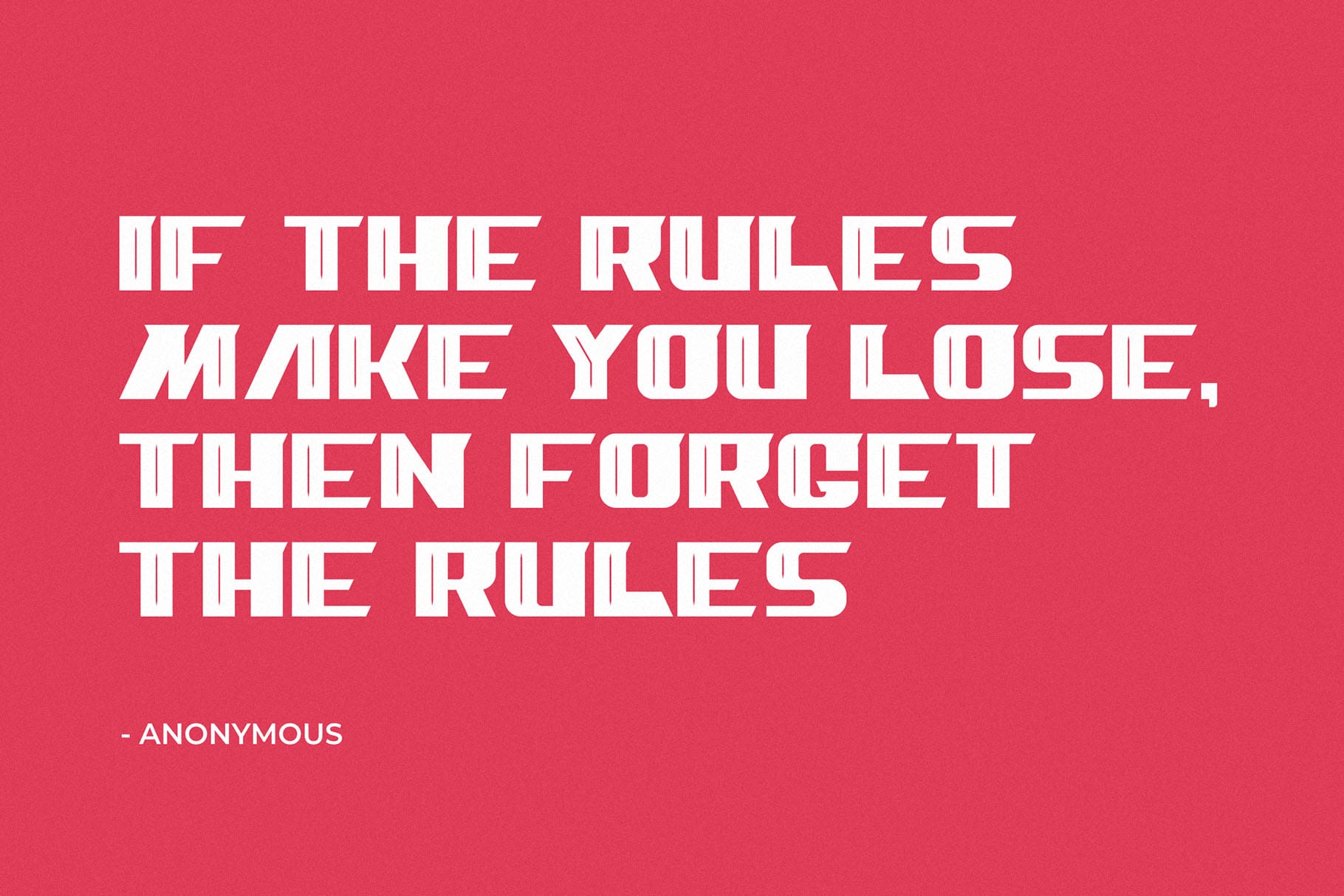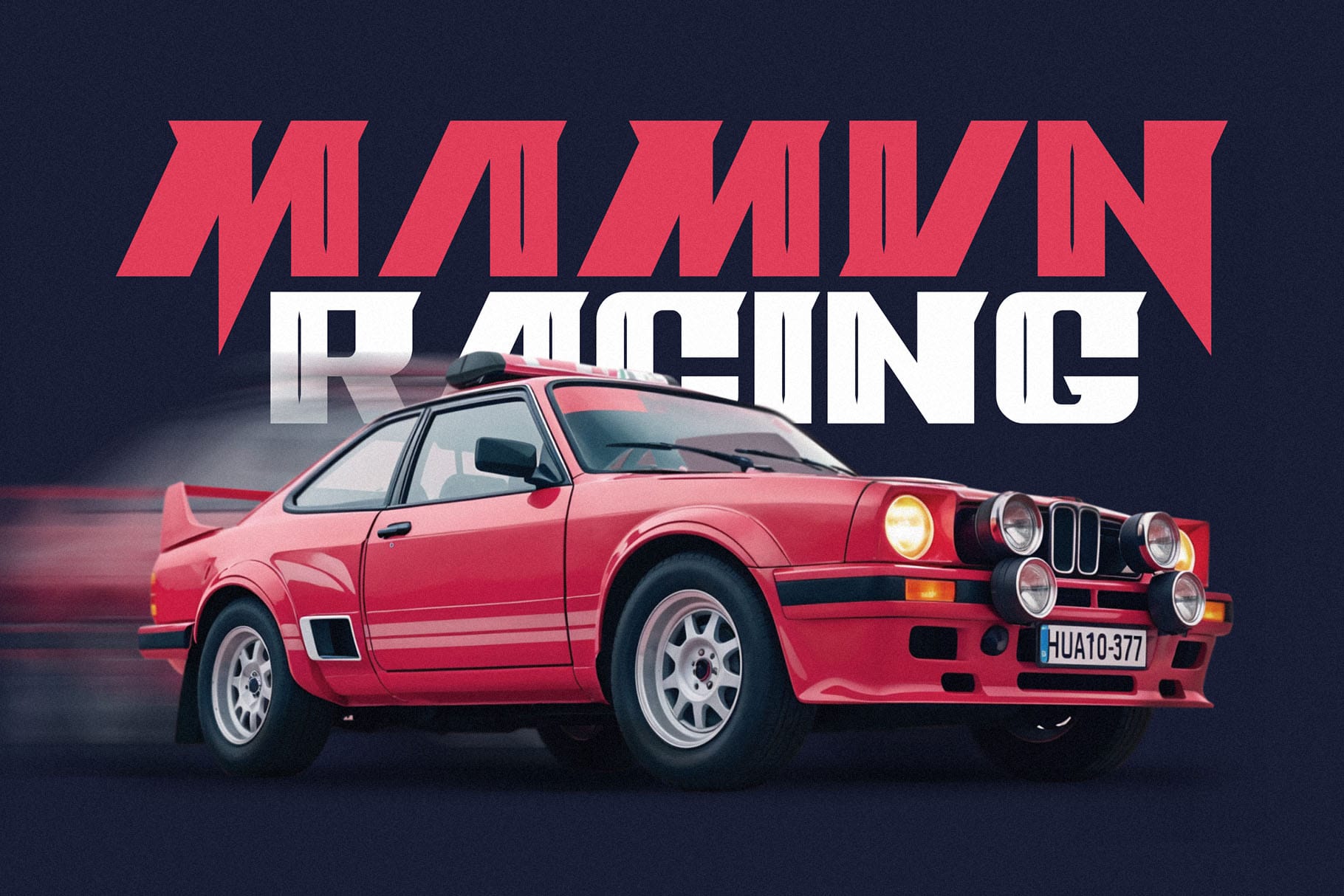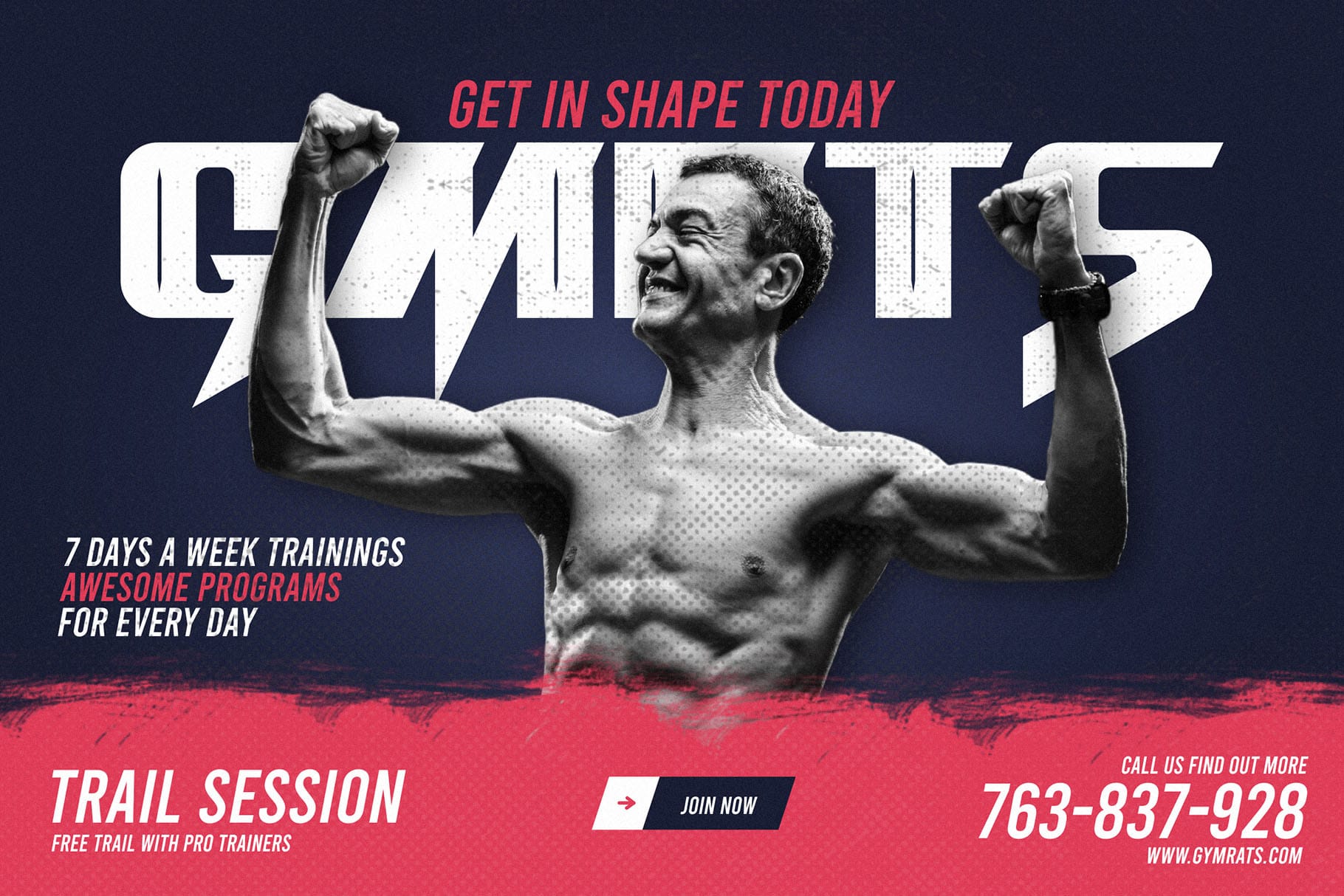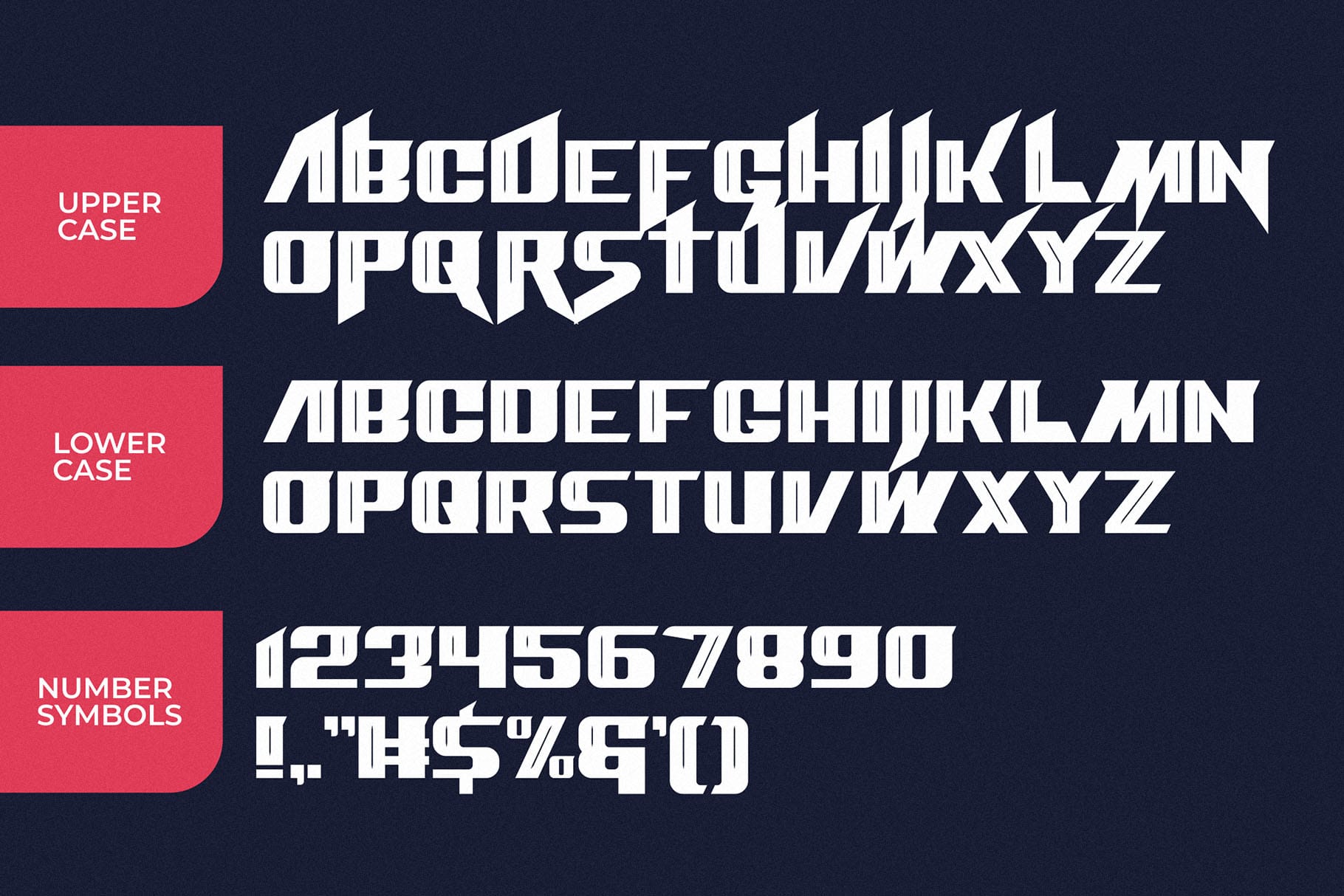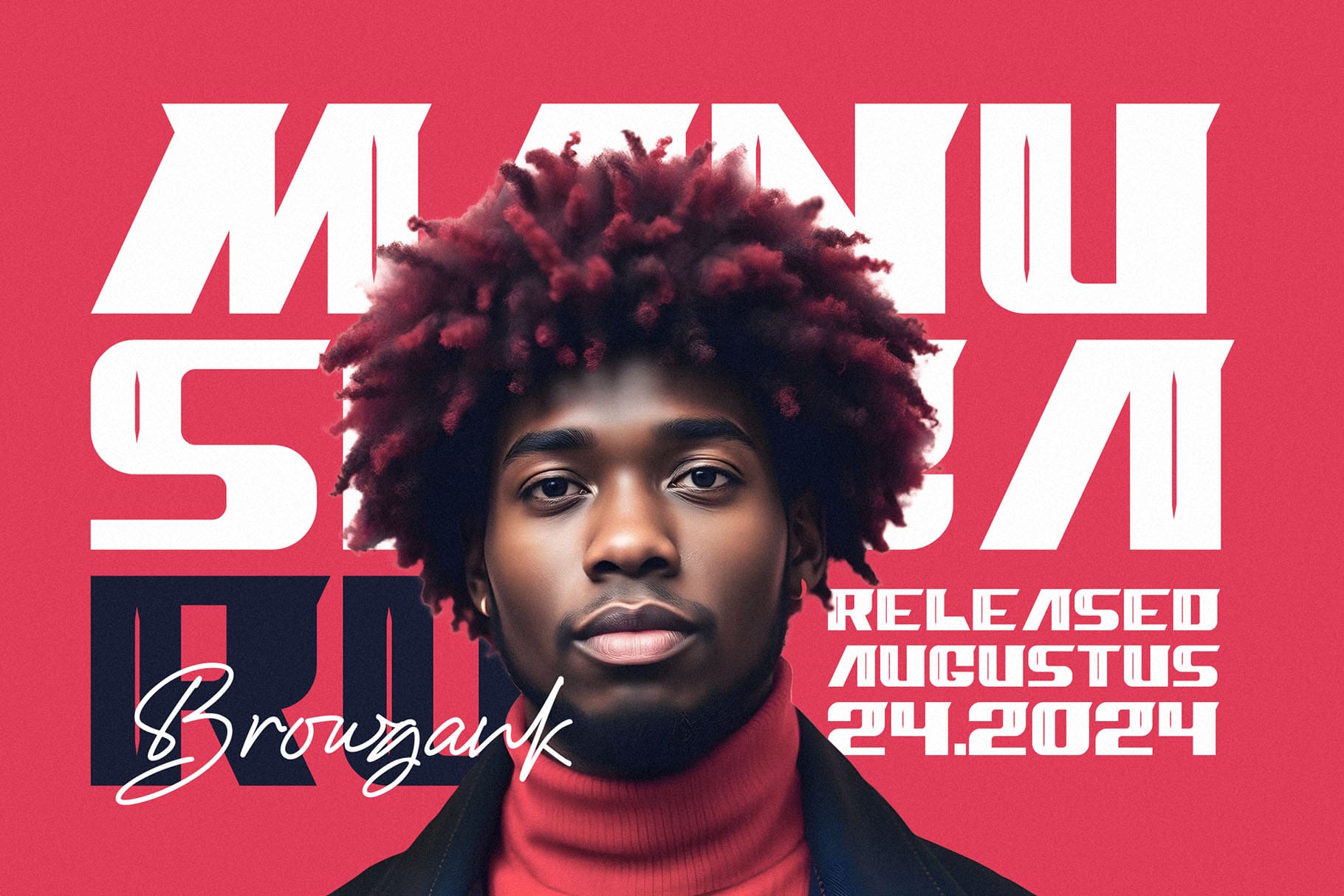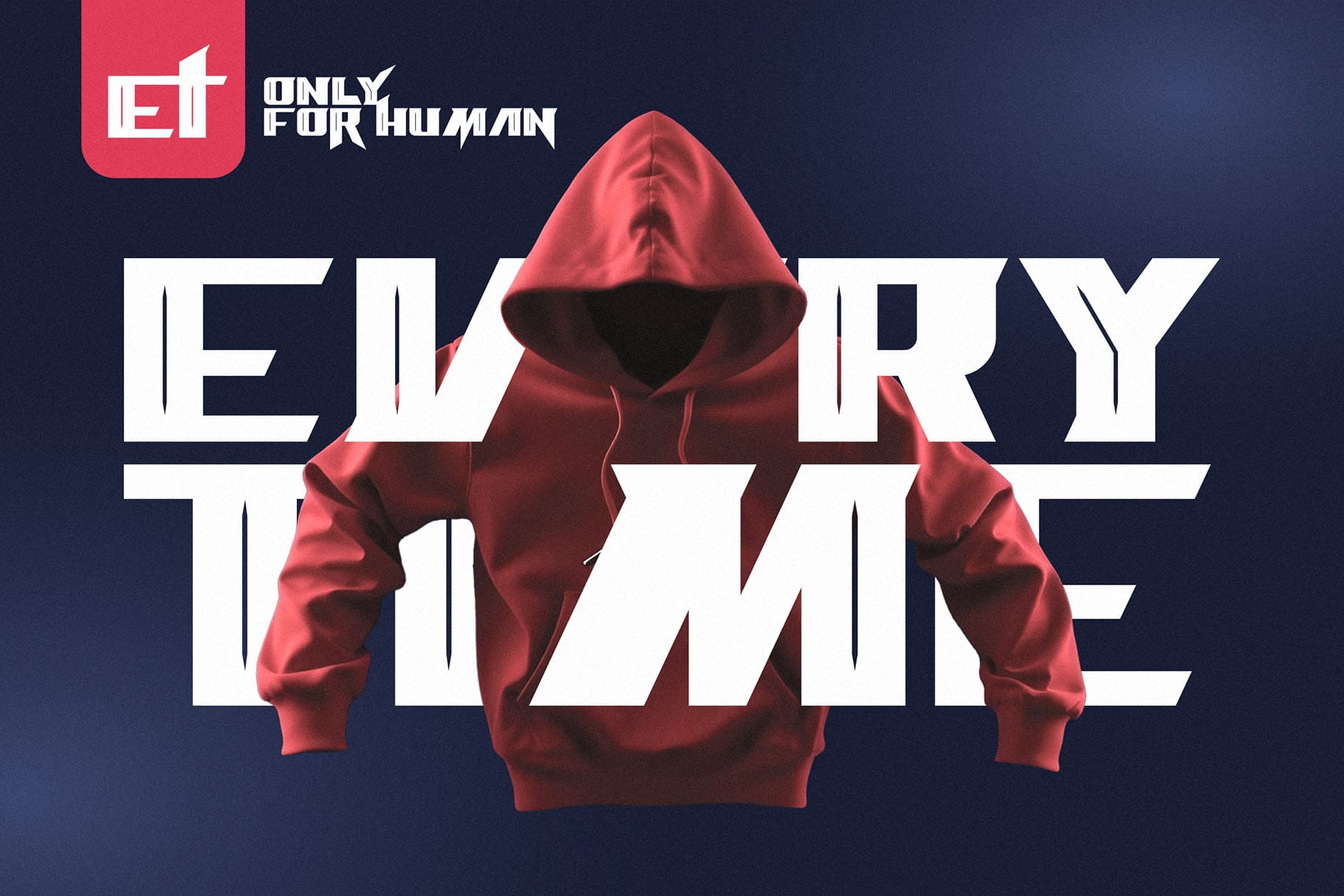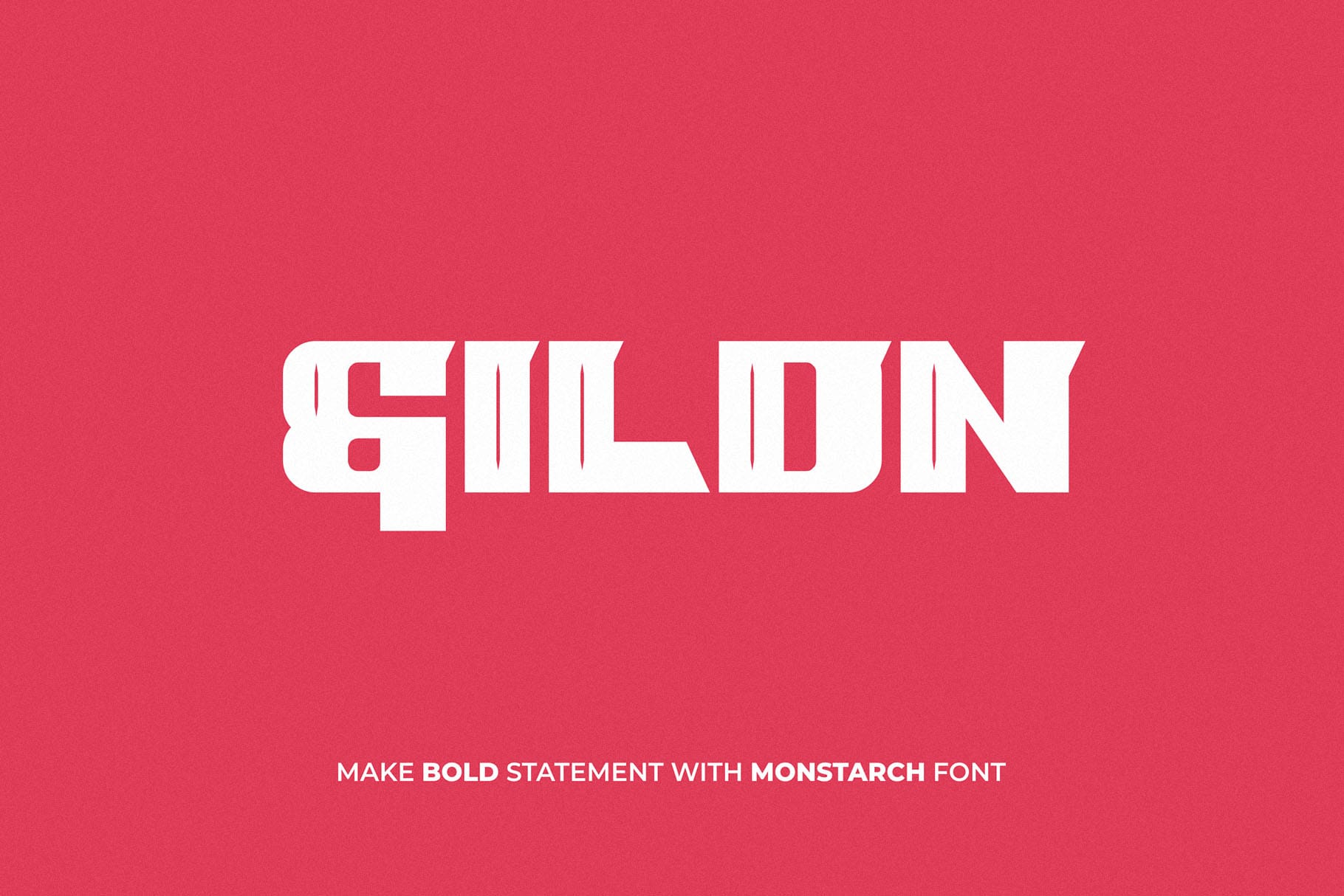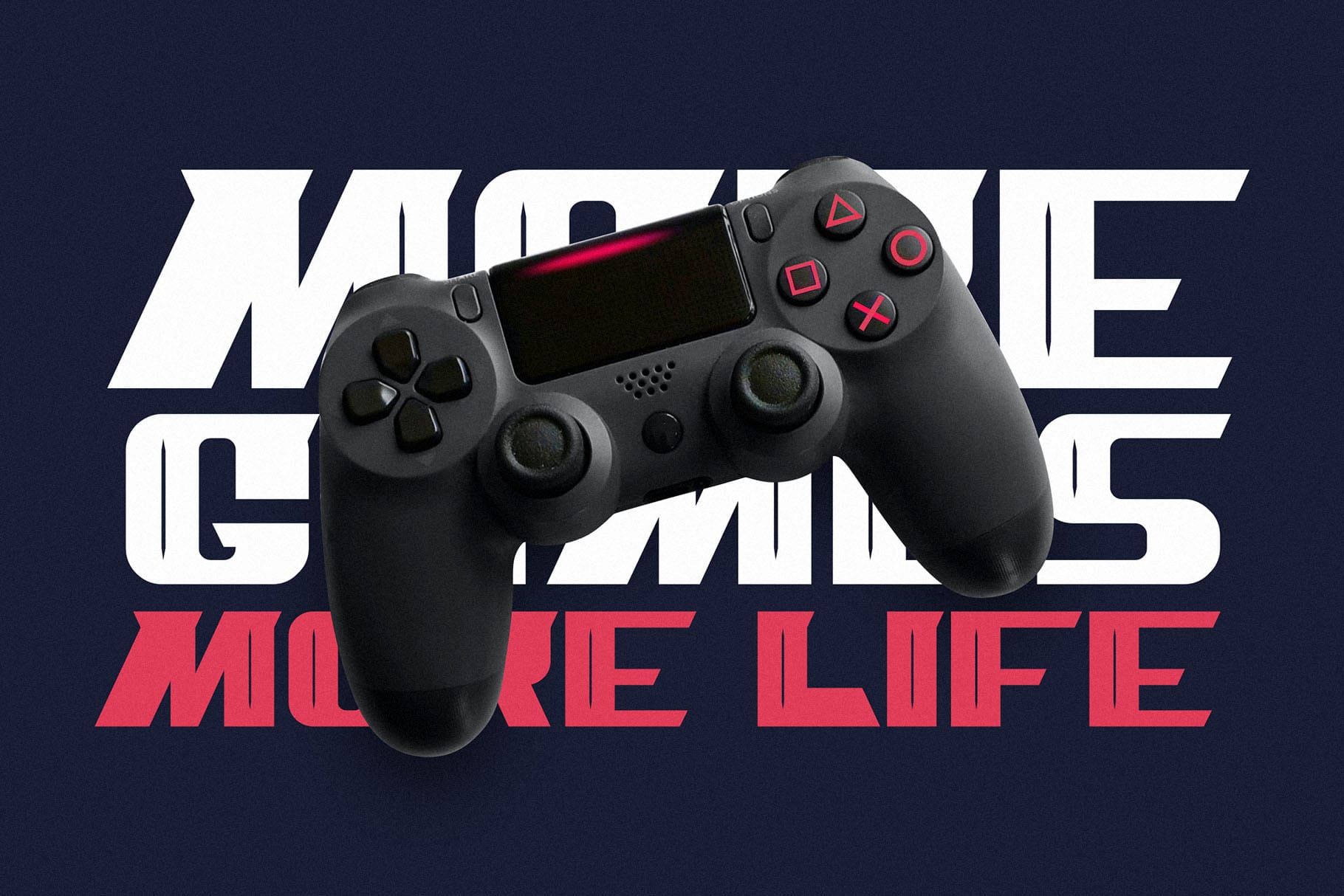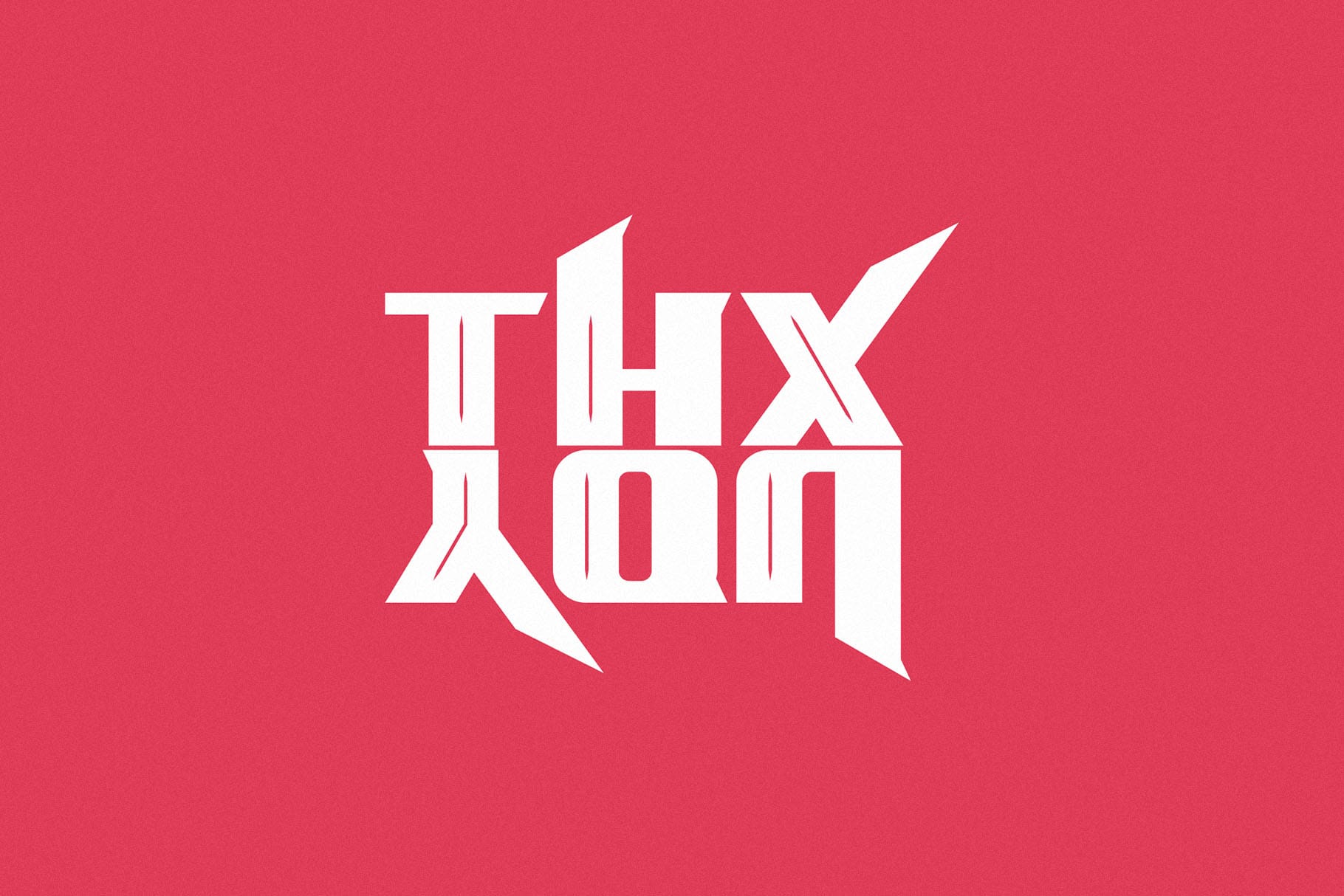
Monstarch
Monstarch is a powerful bold display font designed to dominate the spotlight. With its commanding presence and robust letterforms, Monstarch is perfect for making a statement in any design project.
🦁 Bold and Fearless: Monstarch boasts thick, bold lines that exude strength and confidence. It’s the go-to font for titles, headlines, and posters that demand attention and convey a sense of authority.
🎨 Versatile Impact: Whether used in branding, advertising, or product packaging, Monstarch adapts effortlessly to a variety of contexts, ensuring your message is both clear and unforgettable. Its bold structure makes it ideal for both print and digital applications.
🌟 Dynamic Design: The striking design of Monstarch combines modern aesthetics with a touch of classic appeal, making it suitable for a wide range of styles. From vintage-inspired themes to cutting-edge concepts, Monstarch adds a dynamic flair to your typography.
🚀 Stand Out: In a world where making an impression is everything, Monstarch ensures your text stands out with its bold, impactful design. Whether you’re working on a logo, poster, or social media graphic, Monstarch delivers a visual punch that resonates.
Monstarch is more than just a font—it’s a statement. With its bold, dynamic design, this display font is crafted to make your text not just seen, but remembered.